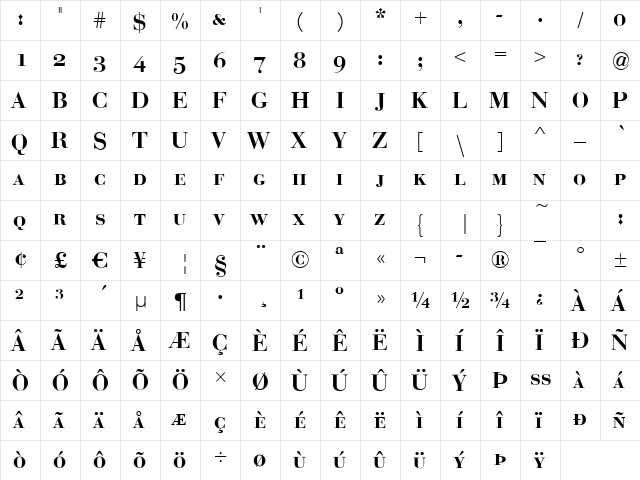
Bodoni-Display-Caps Demi
Design Context for Bodoni-Display-Caps Typeface
Bodoni-Display-Caps brings ornamental detail and strong personality to headlines and identities, where visual impact matters more than quiet functionality.
Font Pairing: Pair with a clean neutral sans-serif for body copy to let Bodoni-Display-Caps's character lead without overwhelming the composition.
Pro Tip: Treat Bodoni-Display-Caps as the centrepiece of your typographic hierarchy. One strong heading set in a decorative face can carry an entire layout.